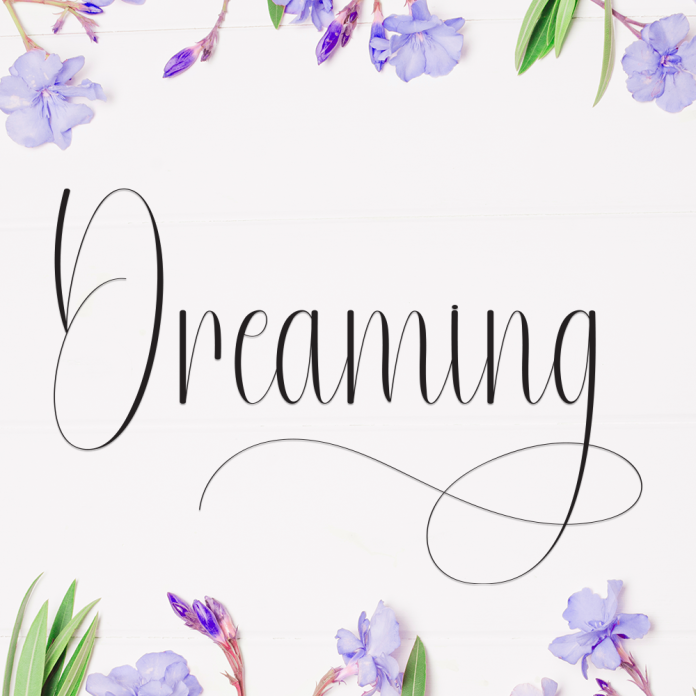
Dreaming is a delicate and graceful handwriting font that captures the essence of imagination and soft expression. With its flowing strokes and personal touch, this font feels like a handwritten note from the heart.
Perfect for wedding invitations, journaling, branding, feminine logos, or inspirational quotes, Dreaming adds a romantic and whimsical flair to any project.
Elegant handwritten style
Smooth and flowing letterforms
Natural and personal look
Let your creativity drift with the poetic charm of Dreaming. Perfect for telling your story with grace.